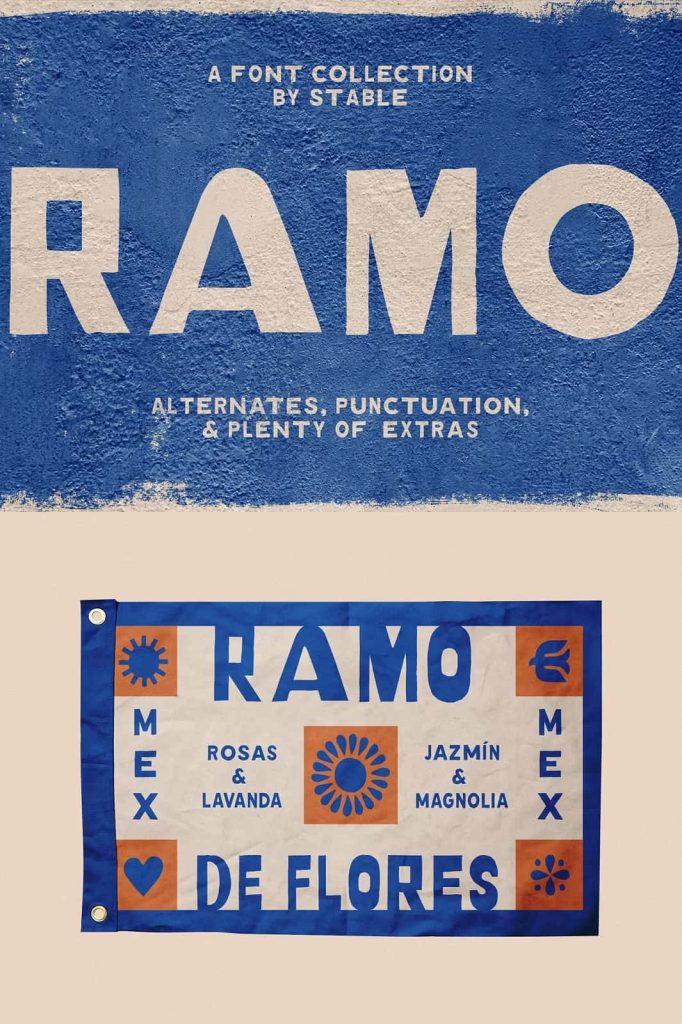
Ramo Font Collection
Ramo Hand Drawn Font Collection: Inspired by Mexican Rótulos Signage
Ramo hand drawn font collection celebrates the vibrant and expressive art of “Rótulos,” the traditional hand-painted signage found throughout Mexico. This bespoke collection transforms that rich cultural heritage into a versatile set of digital typefaces. Each font captures the energy, craftsmanship, and personality of street lettering while adapting it for modern design use.
Ramo goes beyond a simple font set. It offers a complete creative toolkit that allows designers to build authentic, bold, and visually engaging compositions. With multiple font styles, alternates, and decorative elements, this collection empowers you to create designs that feel both handcrafted and professional.
Inspired by the Art of Rótulos
Rótulos signage represents a unique form of visual communication. Artists paint these signs by hand, often using bold colors and distinctive lettering to attract attention. Ramo draws directly from this tradition, translating its expressive qualities into digital typography.
The fonts reflect the spontaneity and creativity of hand-painted signs. Each character carries subtle imperfections that add authenticity and charm. This inspiration ensures that your designs feel lively and connected to real-world artistry.
Bring Cultural Expression into Your Designs
By using Ramo, designers can incorporate the spirit of Mexican street typography into their work. The fonts capture the energy and individuality of handcrafted signage, making each design more engaging.
This cultural influence adds depth and meaning, helping your projects stand out with a distinctive visual identity.
Four Unique Fonts in One Collection
Ramo includes four different font styles, each offering its own personality and design approach. This variety allows designers to explore multiple directions while maintaining a cohesive aesthetic. The fonts work well individually or as a combined system.
Having multiple styles in one collection increases flexibility. You can switch between fonts depending on the tone of your project or combine them to create layered and dynamic compositions.
Expand Creative Possibilities
The diversity within the collection enables designers to experiment with typography. It supports a wide range of applications, from bold headlines to decorative elements.
This flexibility ensures that the Ramo collection remains useful across different creative scenarios.
Alternates, Numerals, and Punctuation
Ramo provides a complete character set, including alternates, numerals, and punctuation. These features give designers greater control over their typography. Alternates allow you to vary letterforms, reducing repetition and creating a more natural look.
The inclusion of numerals and punctuation ensures that the fonts can handle both decorative and functional text. This makes the collection suitable for a wide range of design needs.
Create Natural and Dynamic Typography
Using alternates, designers can build text that feels organic and less mechanical. This mimics the variation found in hand-painted signage, enhancing authenticity.
These features also support creative experimentation, allowing you to develop unique typographic styles.
Over 20 Decorative Dingbats
In addition to its fonts, Ramo includes more than 20 decorative dingbats. These elements add extra visual interest and help complete your designs. They can be used as accents, dividers, or standalone graphics.
The dingbats complement the fonts perfectly, maintaining the same handcrafted aesthetic. They provide additional tools for designers to enhance their compositions.
Add Creative Details to Your Work
The decorative elements allow you to enrich your designs with minimal effort. They help create cohesive layouts by tying together different components.
These details make your projects feel more polished and visually engaging.
Perfect for Branding, Packaging, and Display Design
Ramo works exceptionally well for branding, packaging, posters, and display typography. Its bold and expressive style makes it ideal for projects that need to capture attention. The handcrafted aesthetic adds personality and authenticity to your designs.
The collection is especially suitable for creative industries, food and beverage branding, and lifestyle projects. It allows designers to communicate energy and originality through typography.
Build a Strong and Memorable Visual Identity
Using Ramo, designers can create branding that feels distinctive and engaging. The combination of fonts and decorative elements ensures consistency while offering creative freedom.
This helps establish a recognizable identity that resonates with audiences.
Why Choose Ramo Hand Drawn Font Collection?
Ramo hand drawn font collection offers a unique blend of cultural inspiration, handcrafted design, and modern versatility. Its roots in Rótulos signage give it a distinctive character that sets it apart from standard typefaces.
By choosing Ramo, you gain access to a complete typographic system that enhances creativity and authenticity. It allows you to create designs that feel bold, expressive, and visually compelling. For branding, packaging, and creative projects, Ramo delivers powerful and inspiring results.